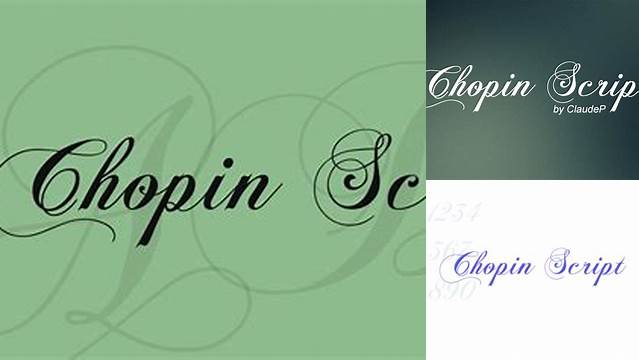
Hey guys! Looking for that perfect elegant touch for your designs? You're probably on the hunt for a Chopin Script font free download, and you've come to the right place! This font is seriously gorgeous, and it can add a touch of class to everything from wedding invitations to branding materials. Let's dive into why Chopin Script is so awesome and where you can snag it without breaking the bank.
Why Chopin Script Font Rocks
Chopin Script is renowned for its flowing lines and refined aesthetic, making it a top choice for designers aiming to evoke sophistication and elegance. Whether you're crafting a wedding invitation, designing a logo, or putting together marketing materials, this font has the versatility to elevate your project. The swooping curves and delicate strokes create a visual harmony that is both eye-catching and timeless. When you use a Chopin Script font free download, you're not just getting a typeface; you're getting a tool that can transform your creative vision into a stunning reality. Imagine your name beautifully scripted across a business card or a heartfelt message penned in an invitation – the impact is immediate and lasting. It's the attention to these subtle details that sets Chopin Script apart and makes it a favorite among designers and creatives worldwide. So, if you're looking to add a touch of luxury and sophistication to your projects, consider giving Chopin Script a try.
1. Understanding Chopin Script Font
Before you jump into finding a Chopin Script font free download, let's get to know this beautiful typeface a bit better. Chopin Script is known for its elegant, flowing calligraphy style. It mimics the look of handwritten script, making it ideal for projects where you want to convey a sense of sophistication and personal touch. Think wedding invitations, classy logos, or even fancy blog headers. The beauty of Chopin Script lies in its ability to add a touch of luxury and refinement to any design. Its graceful curves and delicate strokes create a visual rhythm that's both eye-catching and easy on the eyes. Understanding its characteristics helps you appreciate its versatility and how it can be best used in your projects. It's not just about finding the perfect font; it's about knowing why it's perfect and how to maximize its potential in your creative endeavors. So, take a moment to consider the nuances of Chopin Script, and you'll be better equipped to make it shine in your designs. When you know the details, using a Chopin Script font free download can transform your digital masterpieces!
2. The History and Inspiration Behind Chopin Script
Every great font has a story, and Chopin Script is no exception! Understanding the history and inspiration behind it can give you even more appreciation for this gorgeous typeface. While the exact origins can be a little murky, many believe it's inspired by classical calligraphy and the elegance of the Romantic era – think of the composer Frédéric Chopin's graceful piano pieces, and you'll get the vibe. Fonts like Chopin Script often draw inspiration from historical handwriting styles, blending traditional forms with modern aesthetics. This fusion results in a timeless appeal that resonates with both classic and contemporary designs. Knowing the historical context can help you use a Chopin Script font free download more effectively. For instance, understanding its roots in calligraphy can inform your decisions about spacing, kerning, and overall layout. Moreover, the artistic inspiration behind Chopin Script can spark your own creativity, leading to innovative applications in your projects. So, the next time you use Chopin Script, remember the legacy of artistry and craftsmanship that shaped its creation, and let that influence shine through in your work!
3. Key Features of Chopin Script Font
What makes Chopin Script stand out from the crowd? Let's talk about its key features. You'll notice the flowing, connected letters, which give it that handwritten feel. The loops and swirls add a touch of flair, while the overall structure remains legible and graceful. This balance is crucial – it's elegant without being overly ornate. When considering a Chopin Script font free download, you should also pay attention to the details like the varying stroke widths, which mimic the natural rhythm of calligraphy. These subtle nuances contribute to the font's organic and authentic appearance. Additionally, Chopin Script often includes alternate characters and ligatures, providing even more customization options for your designs. These features allow you to tailor the font to your specific needs, ensuring a unique and polished look. The beauty of Chopin Script lies in its details, and understanding these elements will help you harness its full potential in your creative projects. Its elegant charm and versatility make it a fantastic choice for adding sophistication to any design!
4. Where to Use Chopin Script Font
Okay, you're hooked on Chopin Script, but where do you actually use it? The possibilities are pretty vast, but here are some ideas to get your creative juices flowing. As mentioned earlier, it's perfect for wedding invitations – imagine the bride and groom's names swirling across the page! It also shines in branding materials, like logos and business cards, especially for businesses that want to project a sense of elegance and class. Think boutique hotels, high-end salons, or even gourmet food brands. A Chopin Script font free download can also elevate your social media graphics or blog headers. Using it sparingly in headings or short phrases can add a touch of sophistication without overwhelming the overall design. However, it's generally best to avoid using Chopin Script for large blocks of text, as its intricate nature can make it harder to read. Instead, use it to highlight key words or phrases for maximum impact. With a little creativity, you can find countless ways to incorporate Chopin Script into your projects and make them truly stand out.
5. Projects Perfect for Chopin Script Font
Let's dive deeper into specific projects where a Chopin Script font free download can really shine. Think about elegant event invitations – not just weddings, but also galas, anniversary parties, or even high-end corporate events. The font's sophistication adds an immediate touch of class. Another great use case is in creating personalized stationery. Imagine thank-you notes or custom letterheads with a beautiful Chopin Script header – it's a small detail that makes a big impression. For those in creative industries, Chopin Script can be a fantastic choice for portfolio websites or personal branding. It helps convey a sense of artistry and attention to detail. If you're designing a product label or packaging, consider using Chopin Script to highlight key information or add a touch of luxury. The font's elegance can help your product stand out on the shelf. Ultimately, the key is to use Chopin Script in projects where you want to communicate sophistication, elegance, and a personal touch.
6. Websites Offering Chopin Script Font Free Download
Alright, let's get to the good stuff – where can you actually find a Chopin Script font free download? There are several reputable websites that offer free fonts, but you need to be careful about licensing. Some fonts are free for personal use only, while others have commercial licenses. A great starting point is Google Fonts. While they may not have the original Chopin Script, they have some stunning alternatives with similar vibes that are completely free for both personal and commercial use. DaFont and FontSpace are other popular options with a wide variety of free fonts. However, always double-check the license before using any font in a commercial project. Sites like Creative Fabrica often have free font bundles as well, so it's worth keeping an eye on their promotions. When downloading from any site, make sure you're on a secure connection and that you're downloading from a legitimate source to avoid malware. Happy font hunting, guys!
7. Alternatives to Chopin Script Font
Okay, so maybe you can't find the exact Chopin Script font free download you're looking for, or perhaps you want to explore some similar styles. No worries! There are tons of gorgeous alternatives out there that capture the same elegant feel. One popular option is Great Vibes, which has a similar flowing, calligraphic style. It's super versatile and works well in a variety of projects. Another fantastic choice is Allura, known for its graceful loops and delicate strokes. If you're looking for something a bit more modern, check out Pacifico. It's a script font with a playful vibe that still retains a touch of elegance. * শিখে* is another great alternative, with its clean lines and sophisticated feel. And if you're browsing Google Fonts, you'll find a bunch of other script fonts that might catch your eye. The key is to look for fonts with similar characteristics – flowing lines, elegant curves, and a handwritten feel. With so many options available, you're sure to find the perfect typeface to complement your designs!
8. Free vs. Paid Chopin Script Font
When you're searching for a Chopin Script font free download, it's super important to understand the difference between free and paid fonts. Free fonts can be a fantastic resource, especially if you're working on personal projects or have a limited budget. However, they often come with restrictions. Many free fonts are only licensed for personal use, meaning you can't use them in commercial projects (like logos, websites, or anything you're selling). If you plan to use the font commercially, you'll need to find a font with a commercial license, which usually means paying for it. Paid fonts often offer higher quality and more features, like additional weights, alternate characters, and better kerning. They also typically come with better support, so if you run into any issues, you can get help from the font designer or foundry. Ultimately, the choice between free and paid depends on your needs and budget. If you're unsure about licensing, always err on the side of caution and check the font's terms of use before using it in a project.
30. Contributing to the Font Design Community
Okay, you've mastered the Chopin Script font free download, you're exploring new typefaces, and maybe… just maybe… you're feeling a creative spark to give back! Contributing to the font design community is a fantastic way to support the art of typography and connect with other designers. If you're a font designer yourself, consider sharing your creations with the world. You can offer your fonts for free or for sale on platforms like Creative Market, MyFonts, or Fontspring. If you're not a font designer, there are still plenty of ways to contribute. You can provide feedback to font designers on their work, participate in online discussions, or simply spread the word about fonts you love. Supporting font designers by purchasing their fonts or donating to their projects is another great way to show your appreciation. You can also contribute to open-source font projects, helping to improve existing fonts and make them more accessible. By getting involved in the font design community, you can help shape the future of typography and support the creation of beautiful and innovative typefaces. Who knows, maybe one day you'll be the one offering a new must-have font!